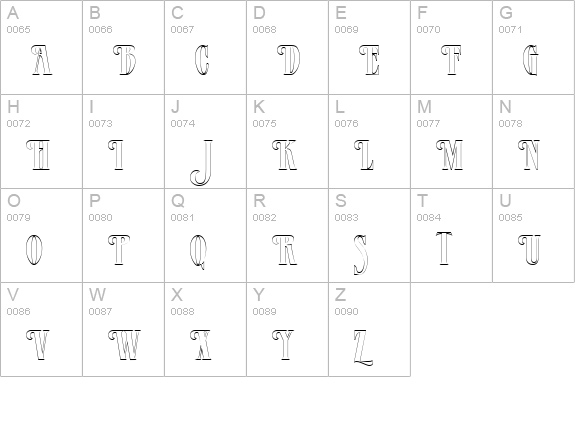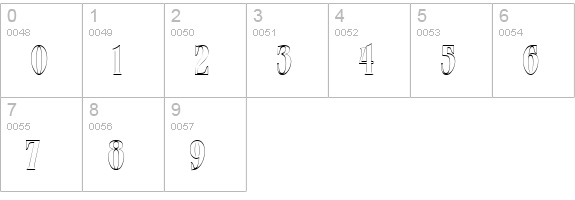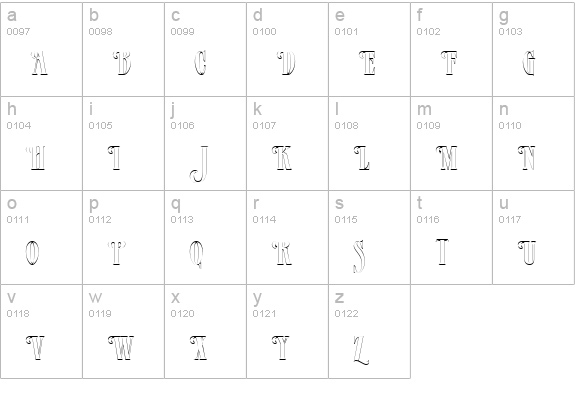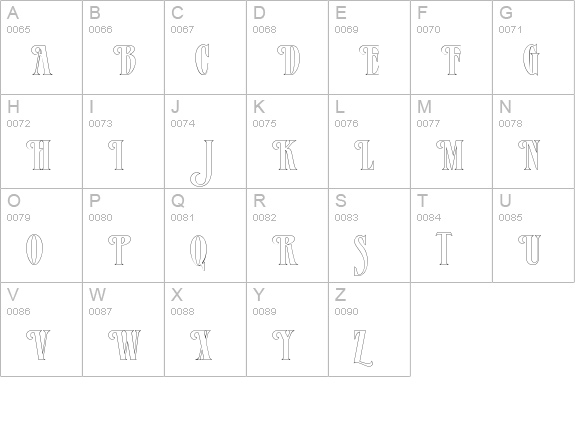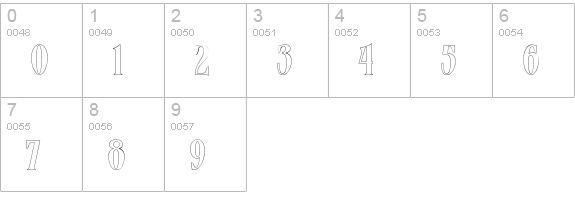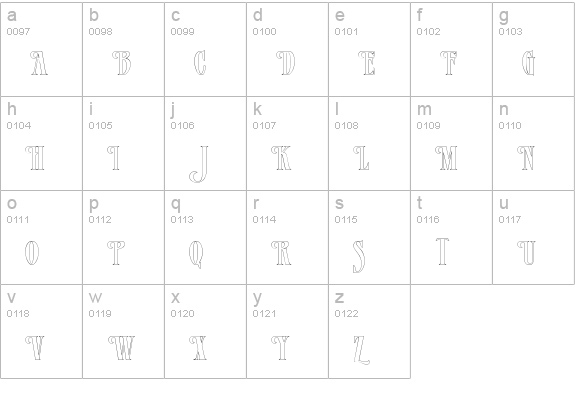
Introducing JanuaryOpen font, a versatile and modern typeface that will elevate your designs to the next level. With its clean lines and sleek appearance, JanuaryOpen is perfect for a wide range of projects, from branding to editorial design. This font exudes elegance and sophistication, making it a great choice for any design that requires a touch of class. What's even better is that JanuaryOpen is completely free to download at FontsMarket.com. Yes, you read that right - this stunning font is available to you at no cost, allowing you to enhance your projects without breaking the bank. Don't miss out on the opportunity to add JanuaryOpen to your font collection today and take your designs to new heights. Download now and let your creativity soar with JanuaryOpen font.